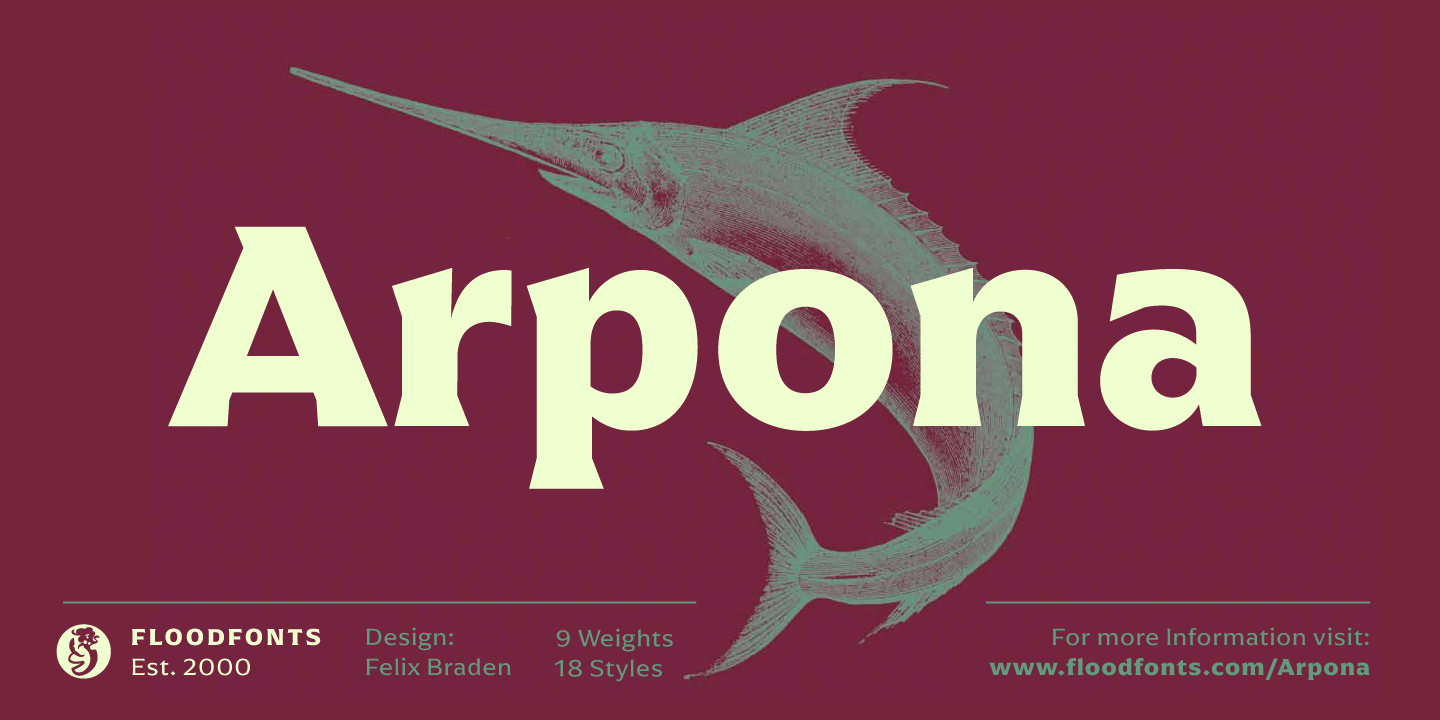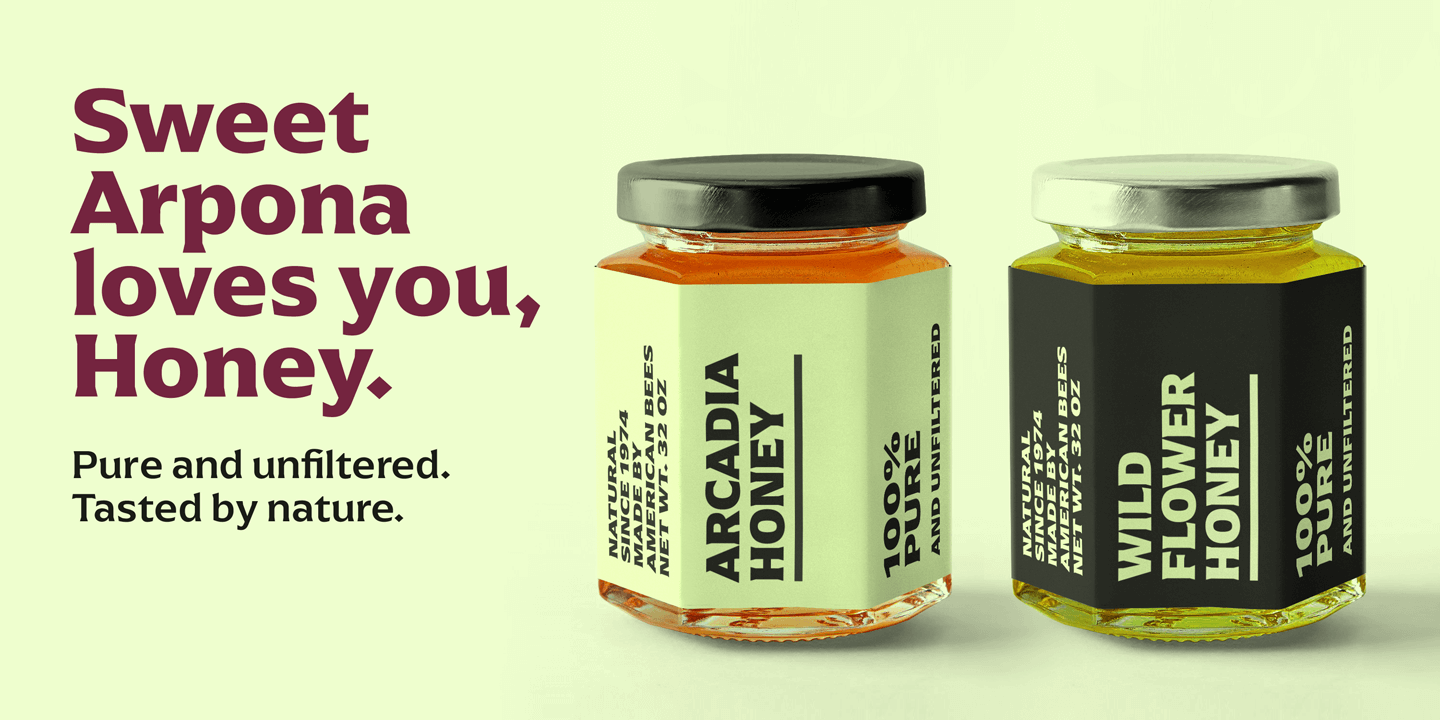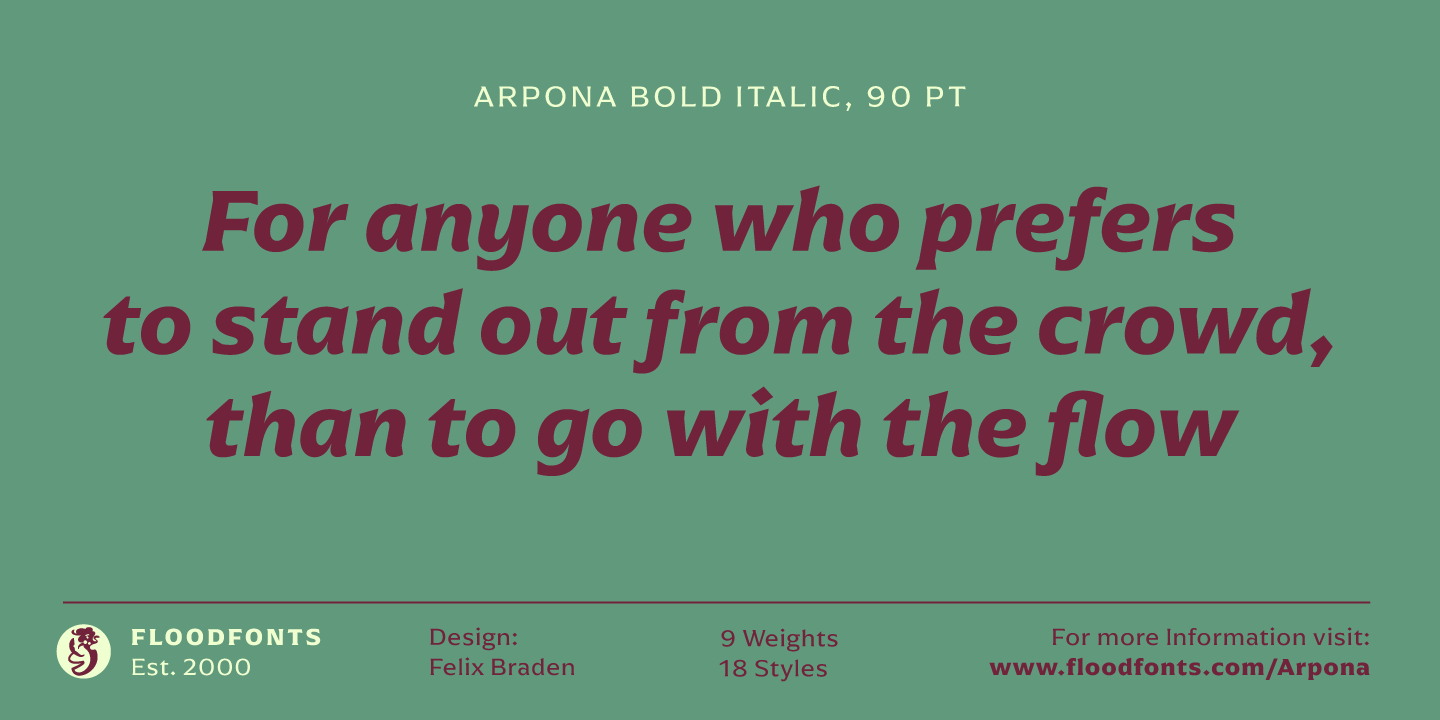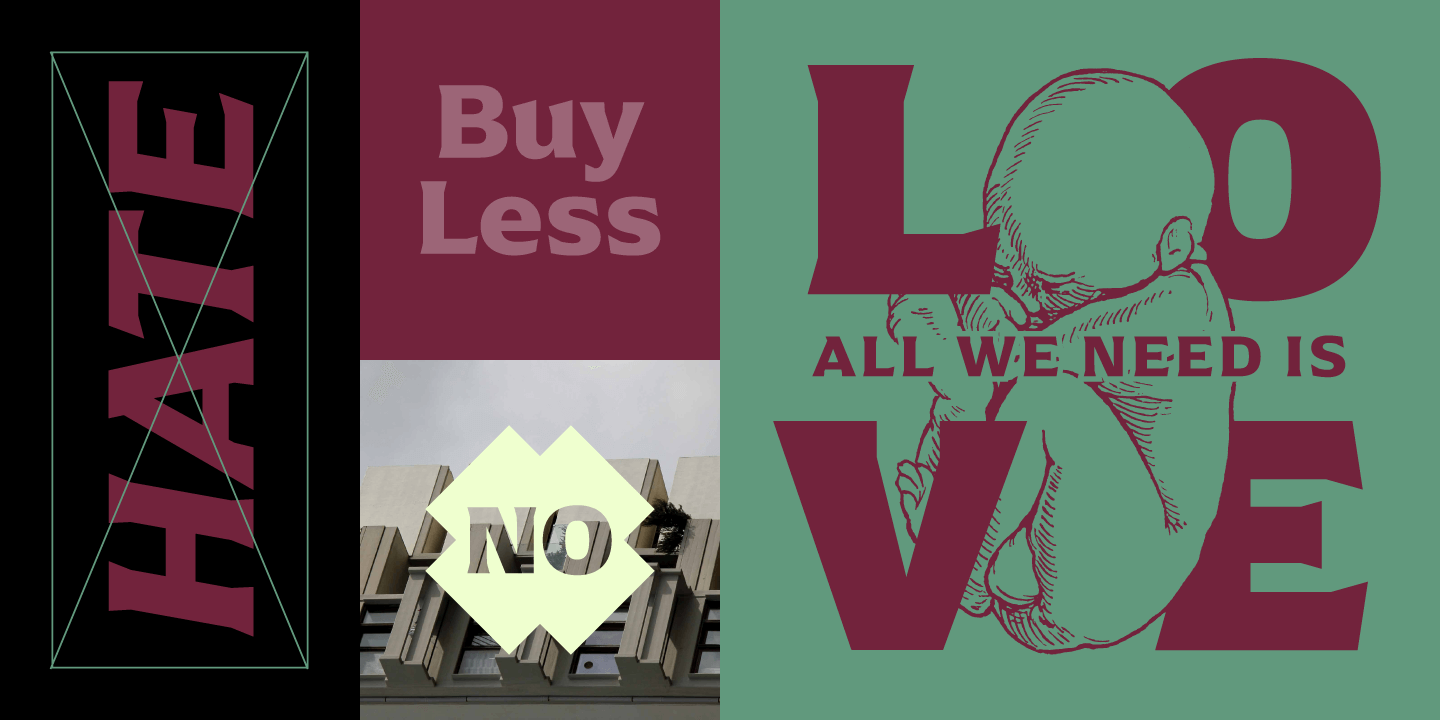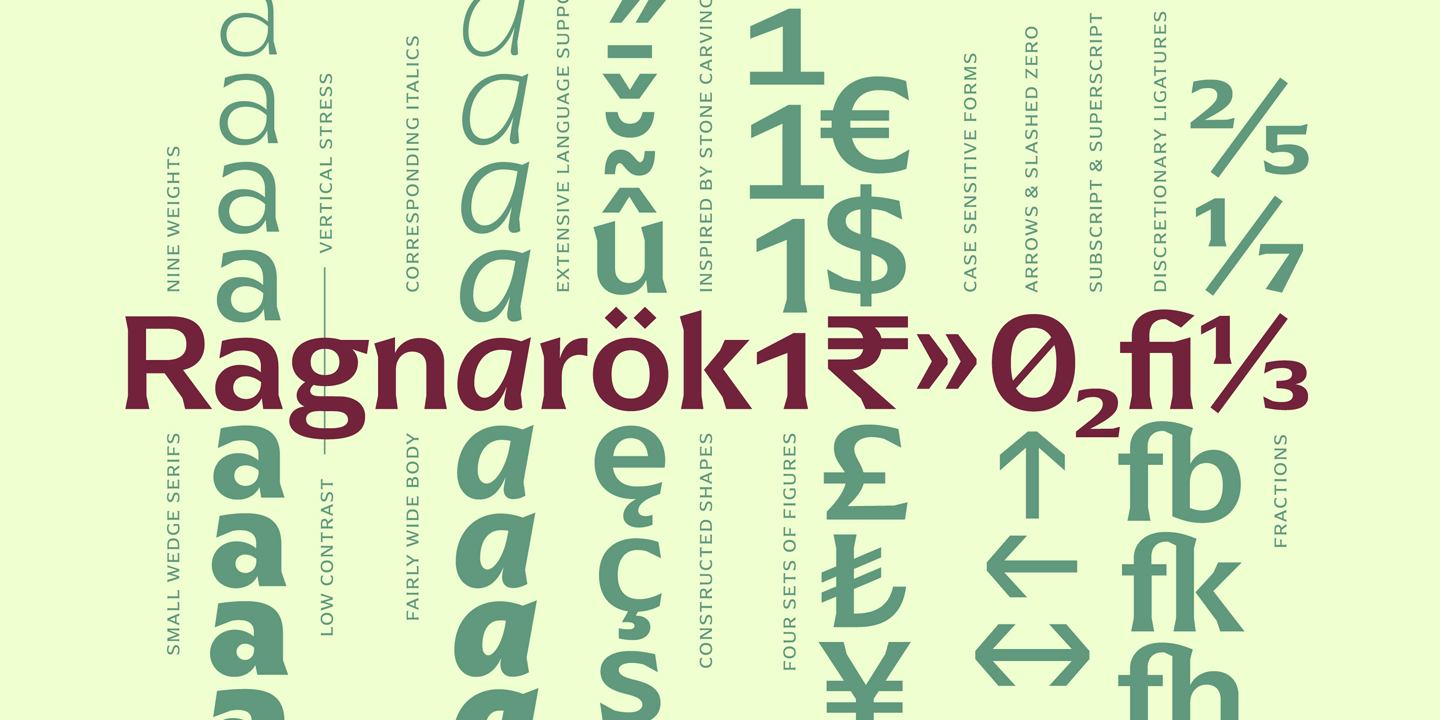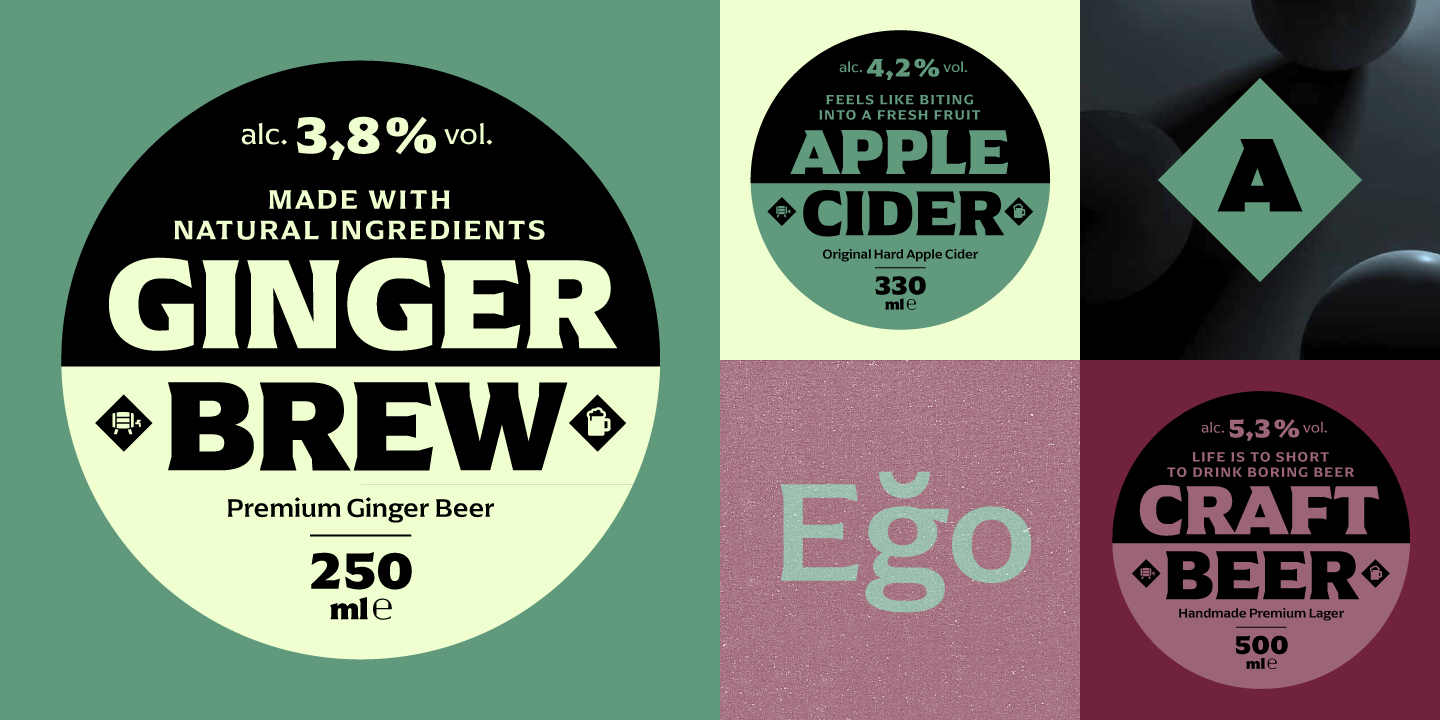
Arpona
Font Family by Floodfonts
Arpona is a typeface for anyone who prefers to stand out from the crowd, than to go with the flow. A family with small wedge serifs and a strong character, ideal for corporate design and all projects characterized by a sense of individualism – for example art, fashion, food, beverage, and lifestyle topics. Arpona is inspired by roman letters carved in stone but otherwise difficult to categorize. It is neither a pure serif nor a sans but rather a symbiosis of different design concepts. The family has nine weights, ranging from Thin to Black plus corresponding italics, and is well readable even in small sizes on screen and in print.